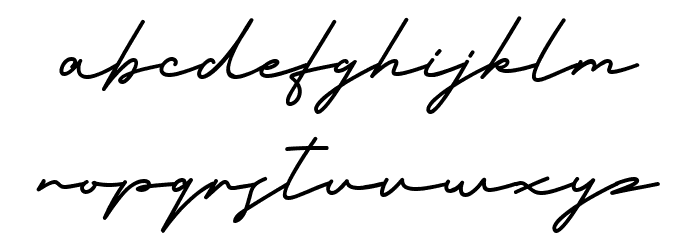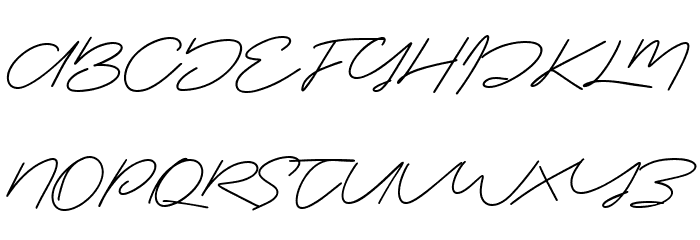
Carols Night Free Regular Font
This font features an elegant, flowing script style that mimics natural handwriting. The characters are connected, creating a seamless and fluid appearance. The strokes are thin and delicate, with a consistent weight throughout. The uppercase letters are slightly larger and more ornate, while the lowercase letters maintain a smooth and cohesive look. The font exudes a sense of sophistication and grace, making it ideal for formal invitations, elegant branding, or any project that requires a touch of class. Its cursive nature adds a personal and intimate feel, perfect for conveying warmth and elegance.
An elegant, flowing script font with a natural handwriting style.
- Font: Carols Night Free Regular
- Proposed Projects: Ideal for wedding invitations, elegant branding, personal letters, and upscale product packaging.
- Category: Script
- Overall Style: Elegant
- Use Case: Invitations, Branding, Personal letters